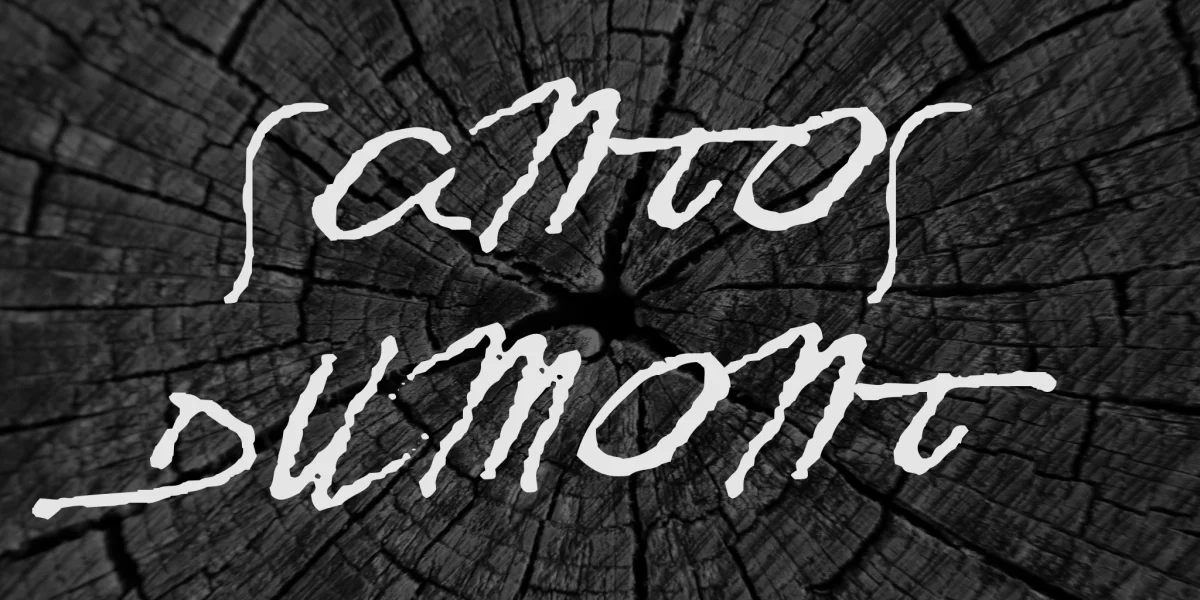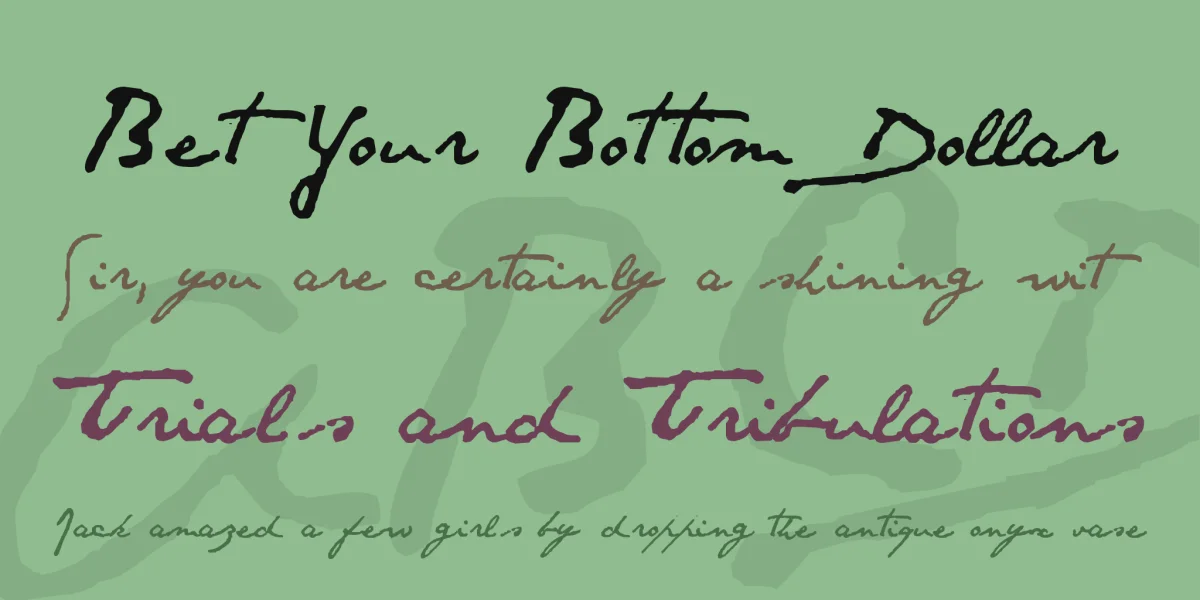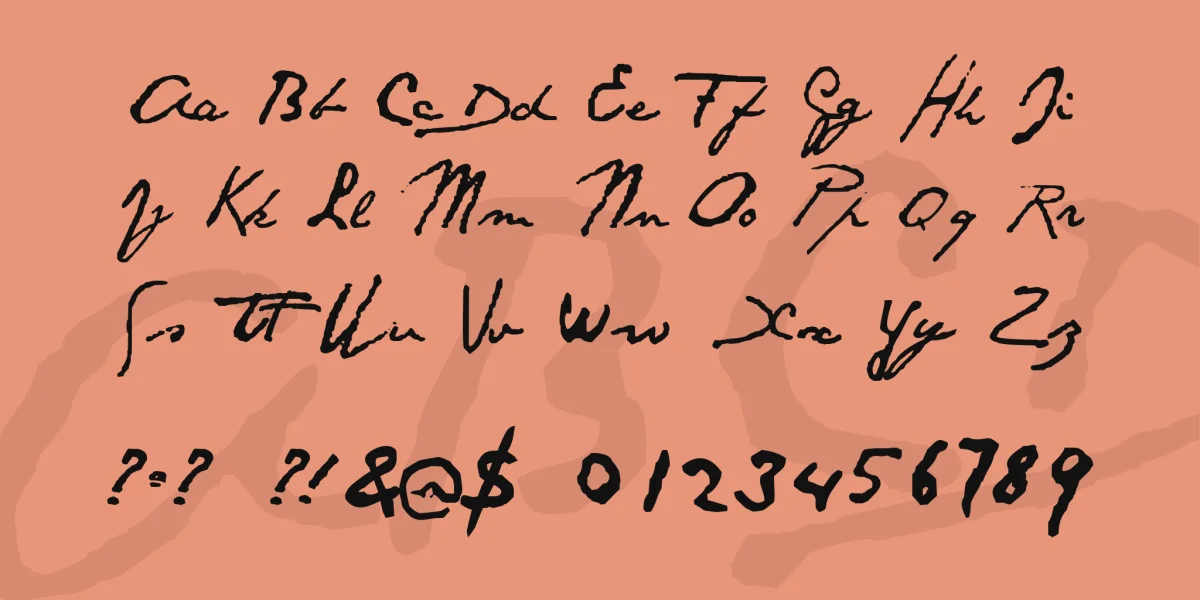
I made this font as an homage to the inventor, Santos Dumont. At the time of my creation, Brasil was struggling with many internationally known catastrophies. Several accidents and famously messy service at airports confounded the country. Santos Dumont was the first Brasilian to seriously think about these issues. His innovations were groundbreaking and i wished to honour him in this way.